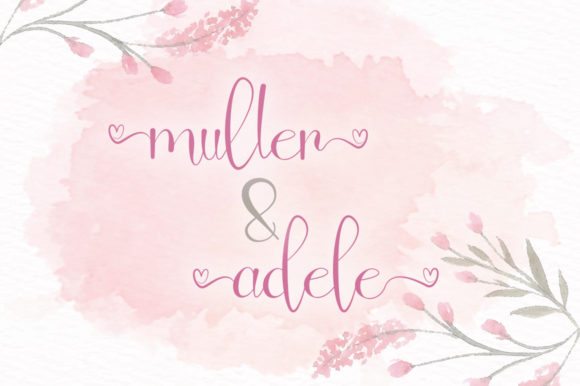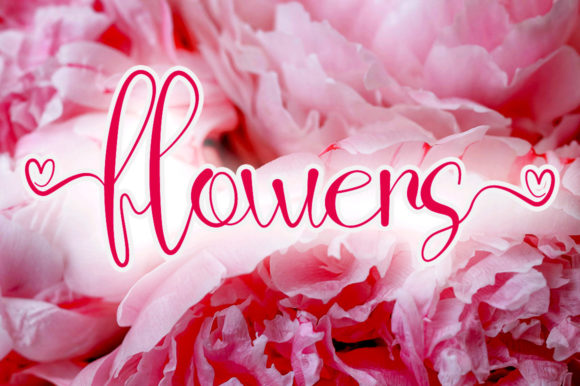
The Girls Font
db-ku.com - Script & Handwritten -- The Girls is a romantic and playful handwritten font. It features beautifully flowing characters and an easy-to-read style, perfect for all projects that require authentic and charming typography. This font is PUA encoded, which means you can access all of the glyphs and swashes with ease!